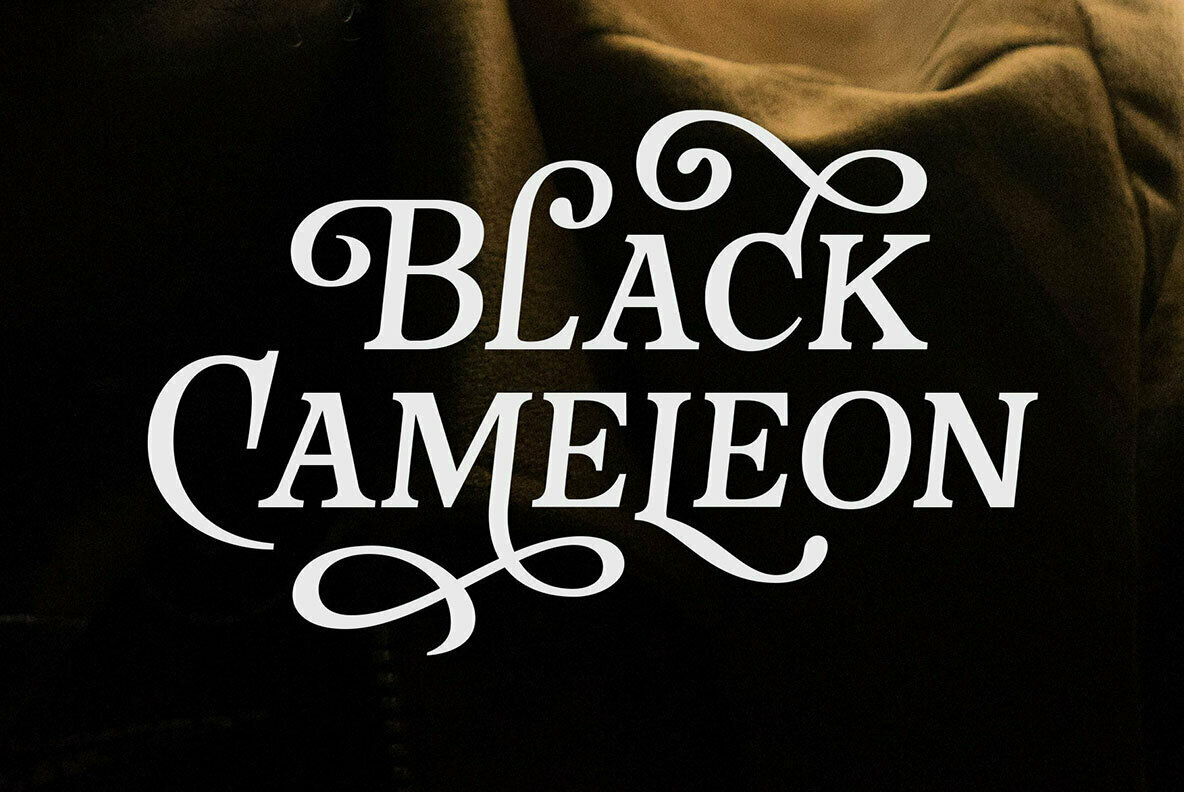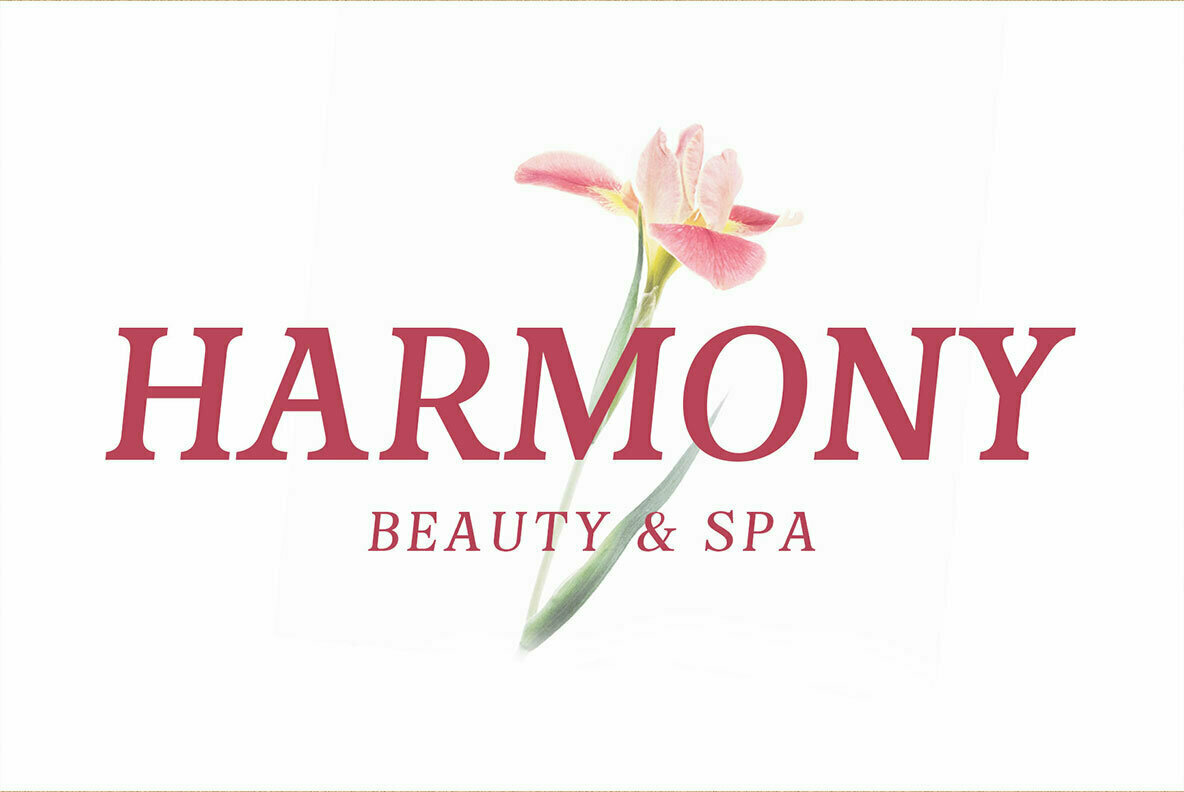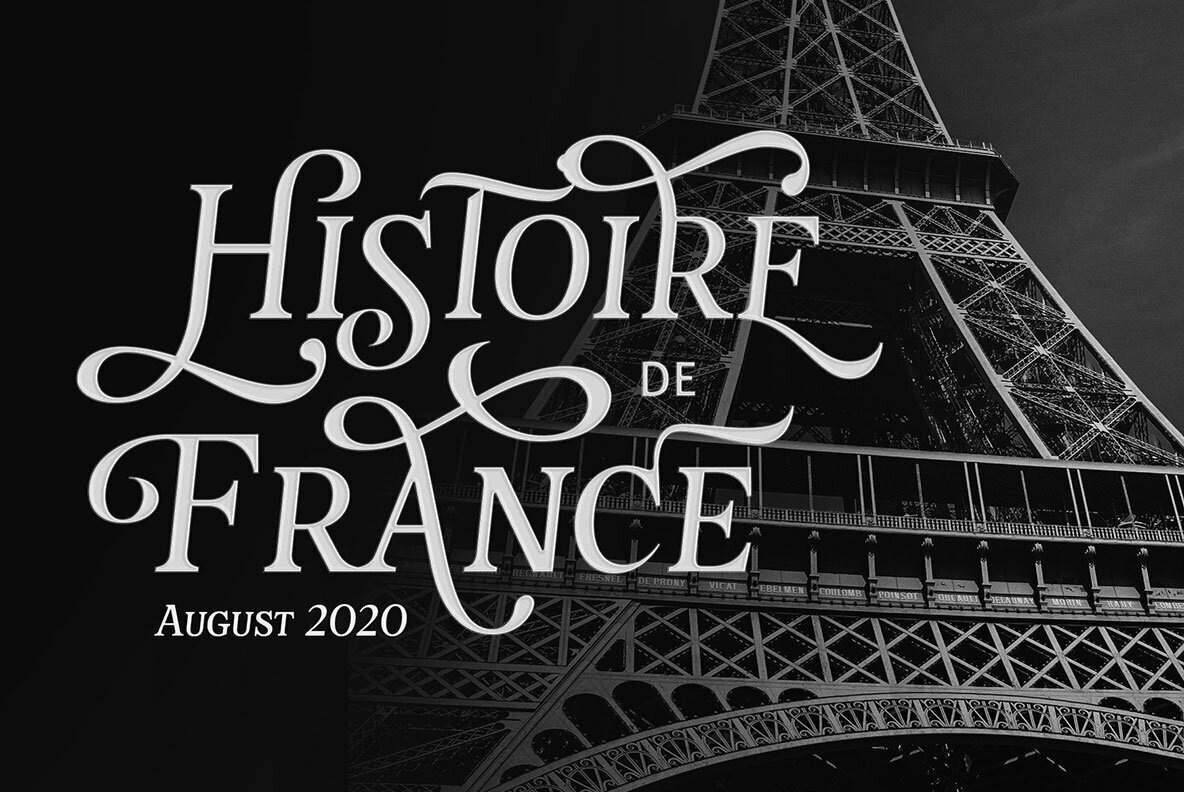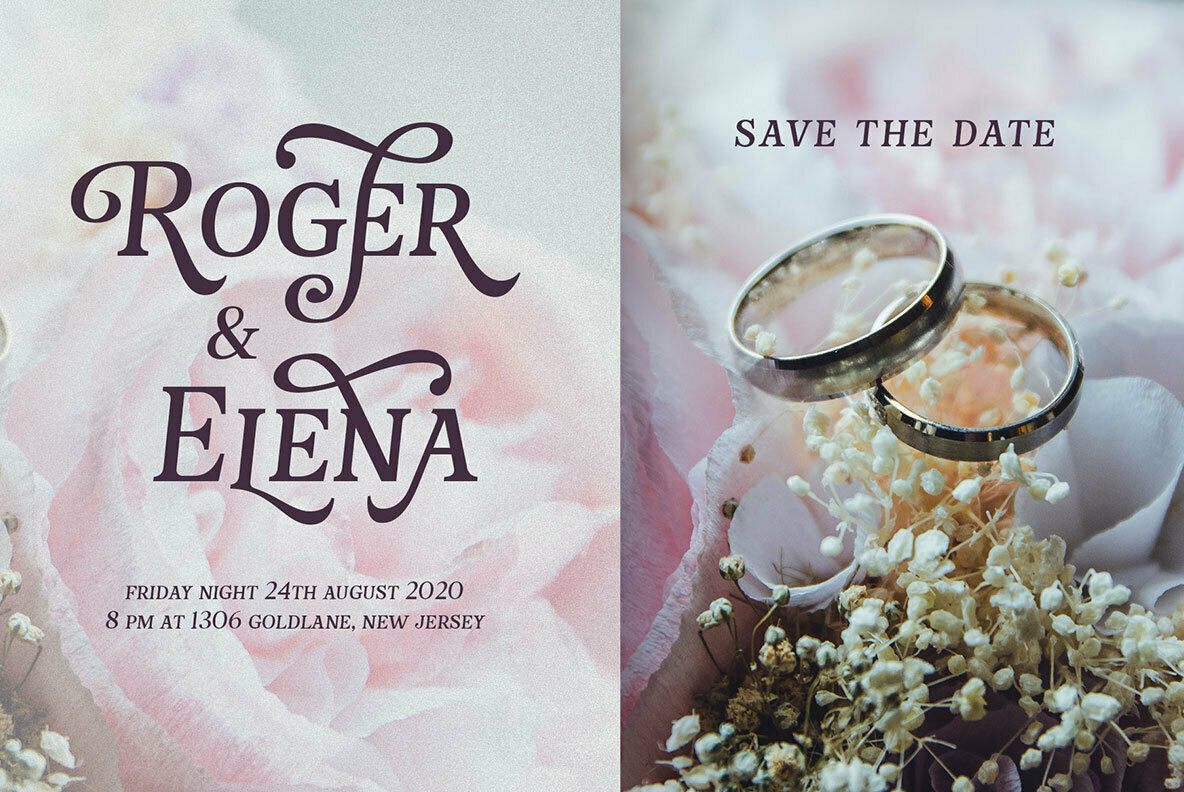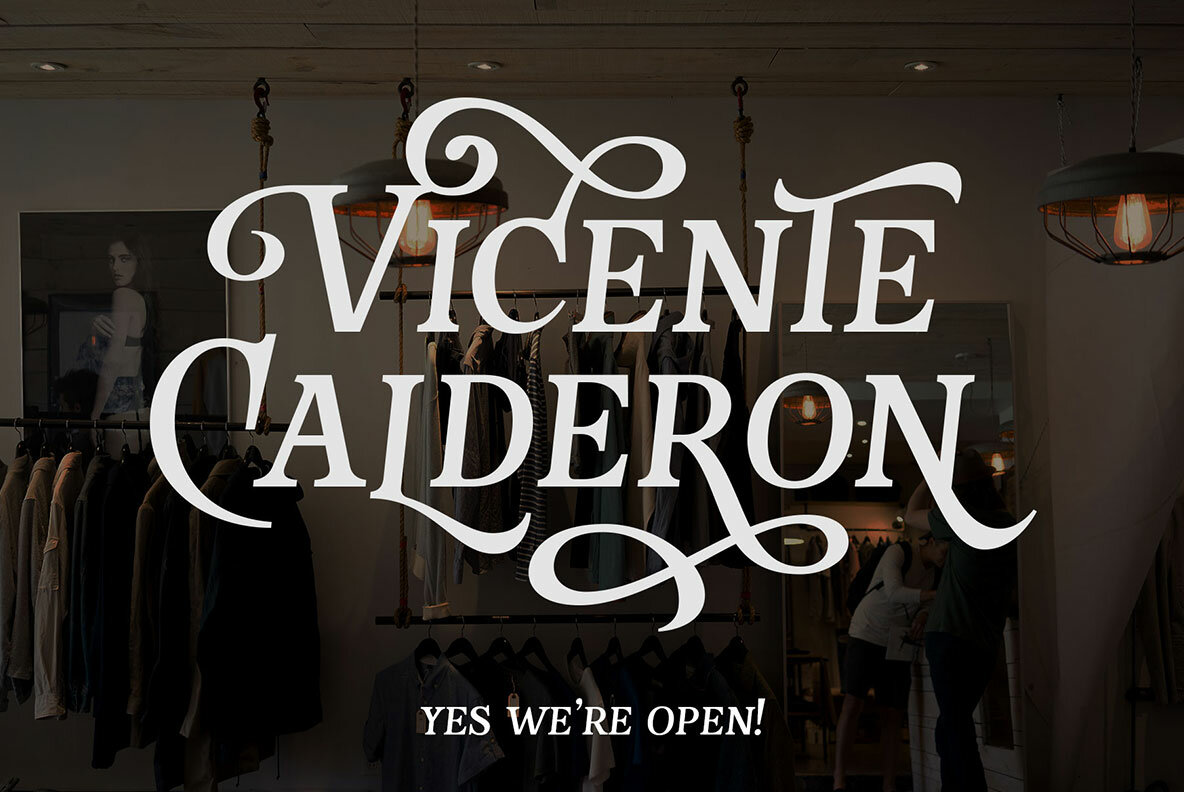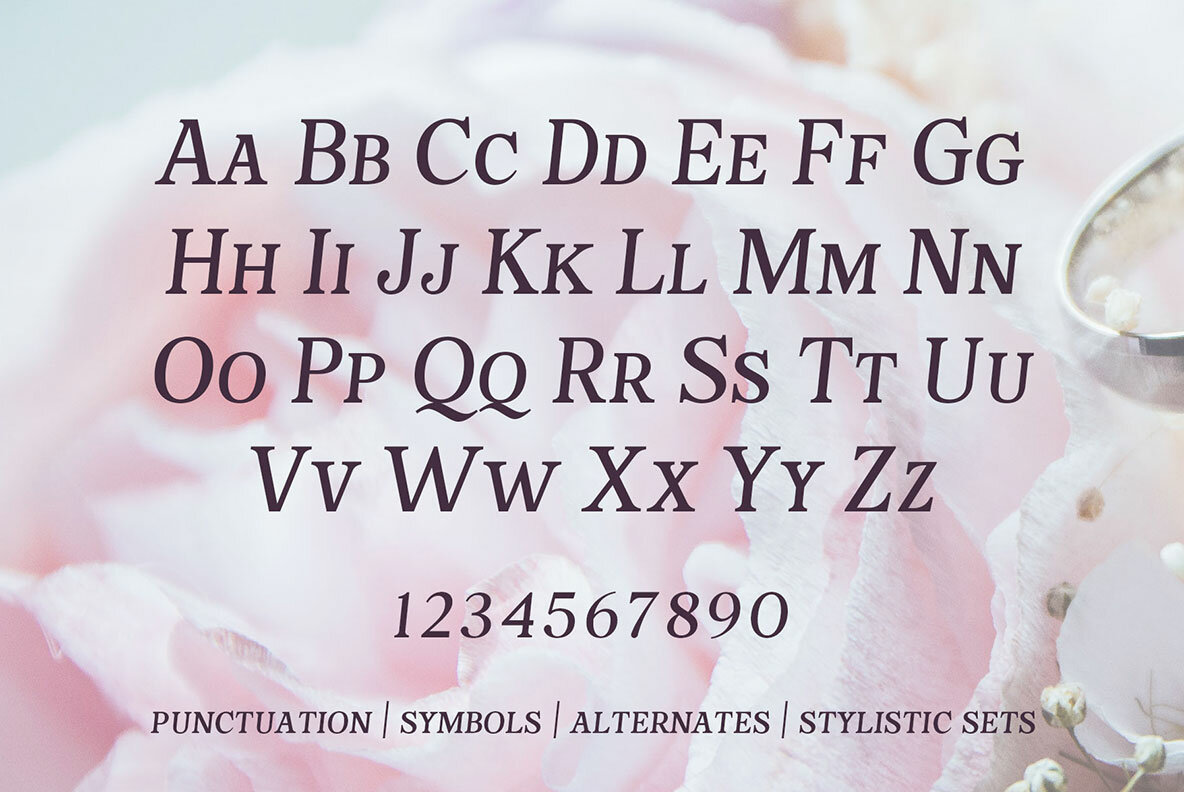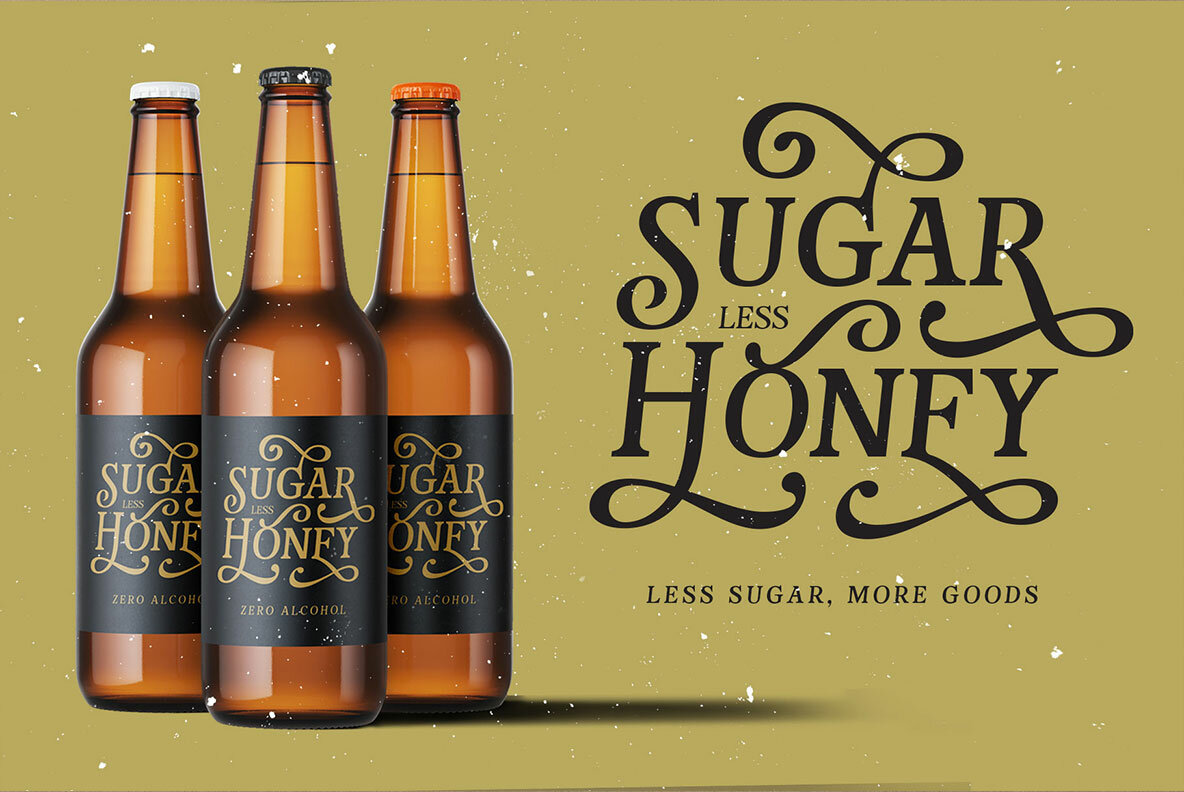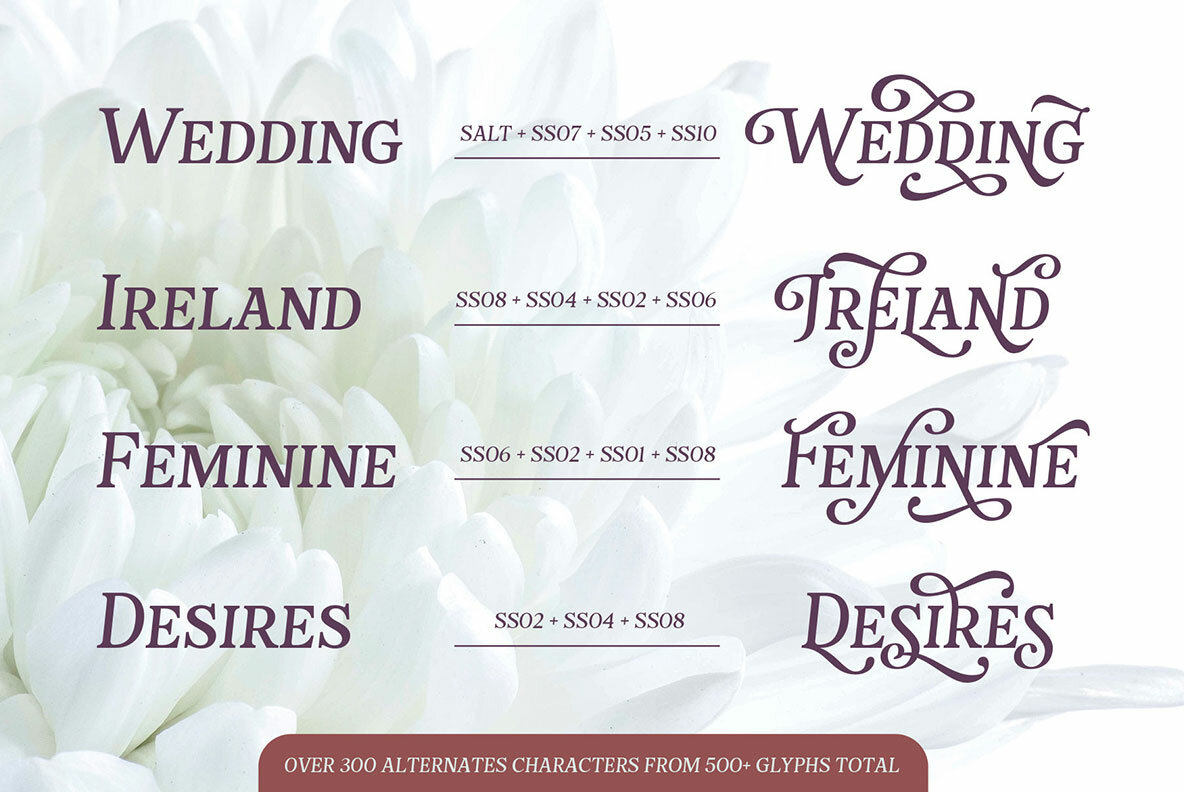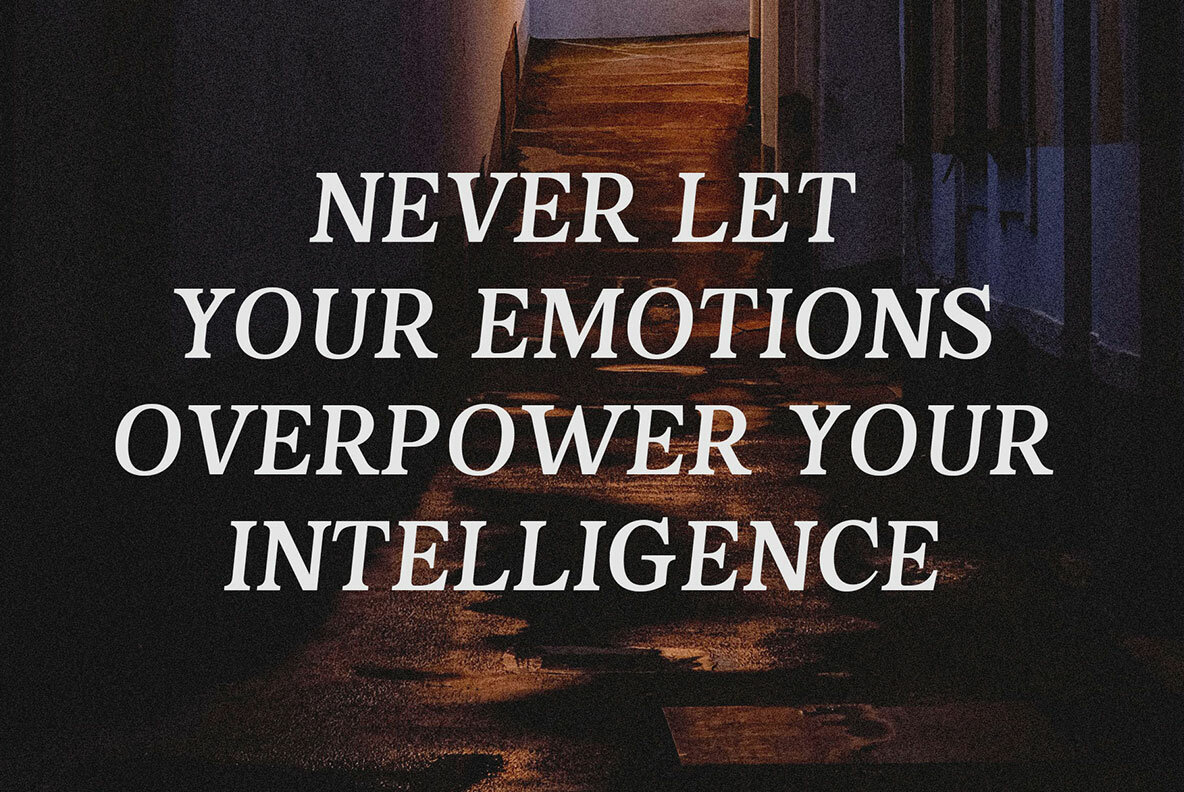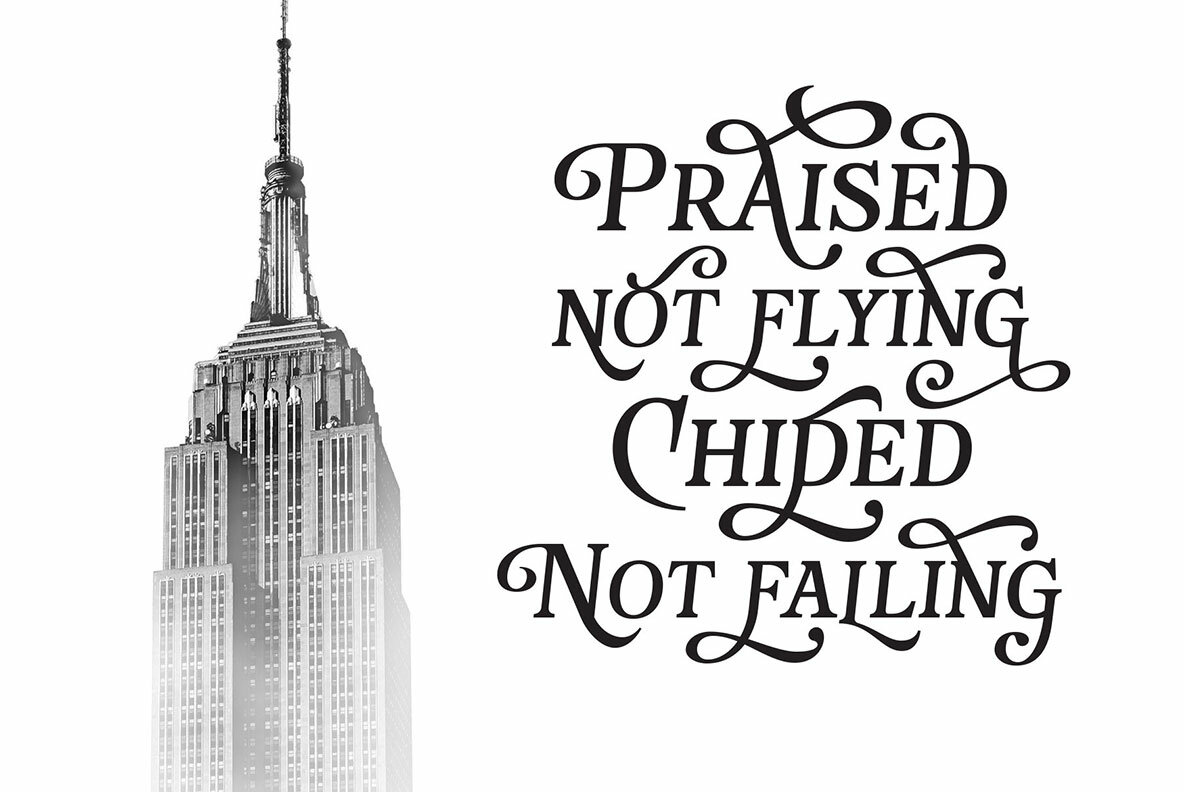
Savaneta Font
Savaneta
Savaneta is an all caps stylish serif font, designed for display and headline. Inspired by the classic metal movable type (circa the 1440s), with the medium serif thickness and 6° slanted. Savaneta is a versatile serif combined with calligraphic sense by adding about 300+ alternates characters so you can create a calligraphic design with ease!
This font looks strong and feminine at the same time, that possible to be applied for many purposes. Savaneta perfect for the logo, logotype, letterhead, branding, cards, wedding invitation, label design, poster, apparel, quotes, and short body text. Over 500 glyphs complete with basic Latin characters.
Featured:
- Uppercase
- Small case
- Numbers
- Symbol
- Standard Latin accents.
- Stylistic alternates
- Stylistic set 01-10